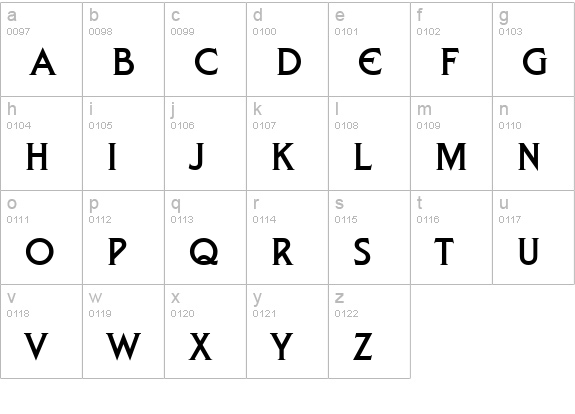
Introducing LibertyD font, a modern and versatile typeface that exudes elegance and sophistication. This font is perfect for a wide range of design projects, from branding and marketing materials to stationery and web design. With its clean lines and stylish curves, LibertyD adds a touch of class to any project. What sets LibertyD font apart is not only its sleek design but also the sense of freedom it conveys. The font embodies the spirit of liberation and creativity, making it ideal for projects that aim to inspire and empower. Best of all, LibertyD font is freely available to download at FontsMarket.com. Now you can bring a touch of sophistication and freedom to your designs with this stunning typeface. Don't miss out on the opportunity to elevate your projects with LibertyD font today!